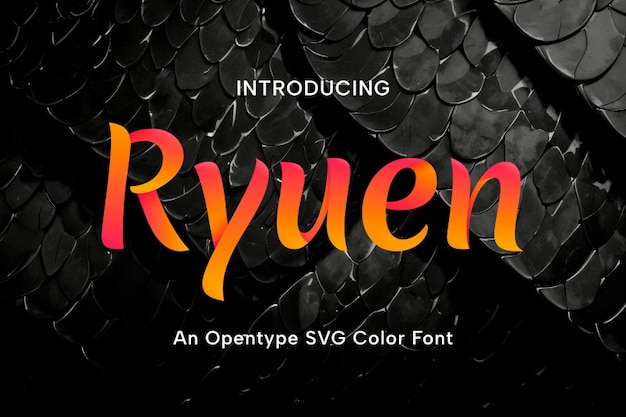
Ryuen Font
Ryuen is an elegant font that radiates a subtle, ember-like warmth. Its refined, graceful lines evoke the flickering beauty of glowing coals, making it perfect for sophisticated designs. Ideal for luxury branding, invitations, or any project seeking a balance of elegance and fiery allure, Ryuen adds a touch of timeless beauty with a hint of glowing intensity.